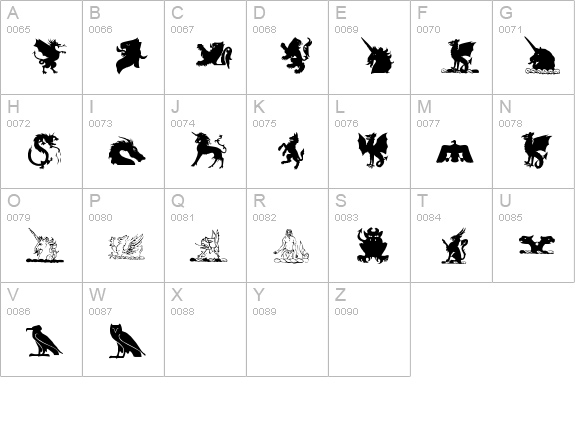
lpmyth2 Font Details
The lpmyth2 font is a contemporary and stylish typeface that combines elegance with a touch of whimsy. Its sleek lines and unique character shapes make it stand out in any design project. Whether you're working on a logo, branding material, or a creative layout, lpmyth2 is sure to add a touch of sophistication. What's even better is that lpmyth2 is completely free to download at FontsMarket.com. This means you can easily access this stunning font without breaking the bank. So why wait? Elevate your designs with lpmyth2 and unleash your creativity today!